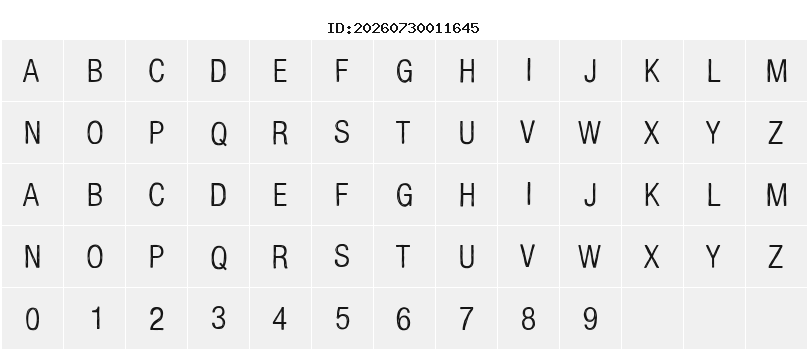
• Font Name: Kelpotico
• Designer: Azmi Kamarullah
Kelpotico.ttf is a modern, elegant sans-serif font designed for ultimate readability and visual harmony. Perfect for branding, headlines, web design, and print materials.